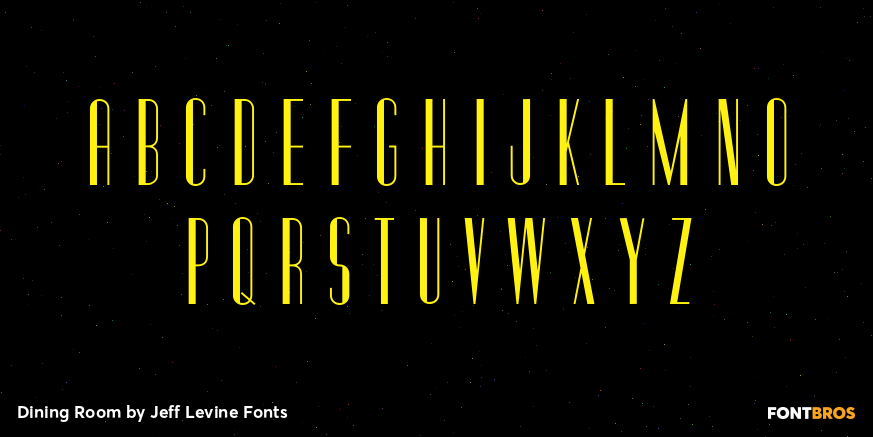
Dining Room
Inspired by the basic letter concept of Walter Huxley's 1935 gem Huxley Vertical, Dining Room JNL is a completely re-drawn typeface, adding even more of an Art Deco feel to an already classic Deco-era letter form consisting of condensed, rounded letters.
Thick vertical lines balance against lighter weight ones, giving a dramatic contrast so typical of the Streamline Era of design concepts.
This font marks another milestone in the Jeff Levine library of retro-inspired type faces. Beginning in 2006 with only ten designs, the collection has grown steadily with Dining Room JNL being the 750th font in the library.
Dining Room by Jeff Levine Fonts